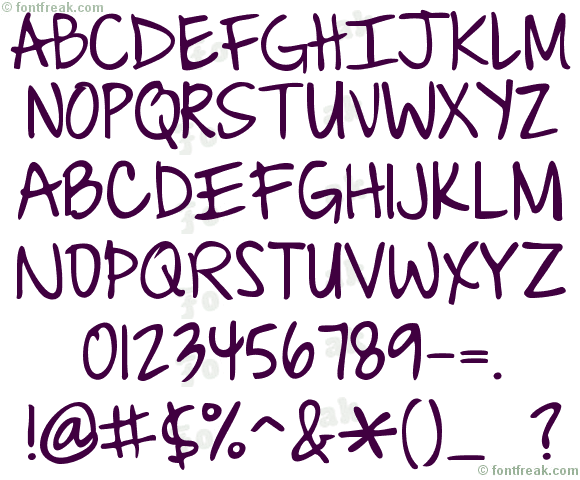
Coming Home
About Coming Home
The Coming Home font, created by Kimberly Geswein, is a charming handwritten typeface that captures the warmth and nostalgia of personal correspondence. This freeware font is characterized by its informal, relaxed strokes that evoke a sense of familiarity and comfort. The letters feature a consistent stroke weight with gentle curves and slight variations, contributing to its organic feel. The spacing between characters is well-balanced, making it easy to read while maintaining a casual aesthetic.
Ideal for a range of creative projects, the Coming Home font excels in applications such as wedding invitations, where its inviting style sets a romantic tone. It also works beautifully for greeting cards, adding a personal touch to heartfelt messages. Content creators can leverage this font for blog headers or social media graphics, offering a friendly and approachable vibe. Additionally, small business owners might find it perfect for branding materials, such as restaurant menus or boutique signage, where a unique flair can attract customers.
Targeting graphic designers, small business owners, and content creators, Coming Home appeals to those seeking a font that balances professionalism with a personal touch. Its versatility allows for usage in both print and digital mediums, making it a valuable addition to any designer’s toolkit.
What sets the Coming Home font apart is its ability to evoke emotions through its simple yet effective design. It infuses projects with character and warmth, making it an excellent choice for anyone looking to create a genuine connection with their audience. With the Coming Home font free download, users can easily elevate their design projects while enjoying the unique charm this typeface brings.